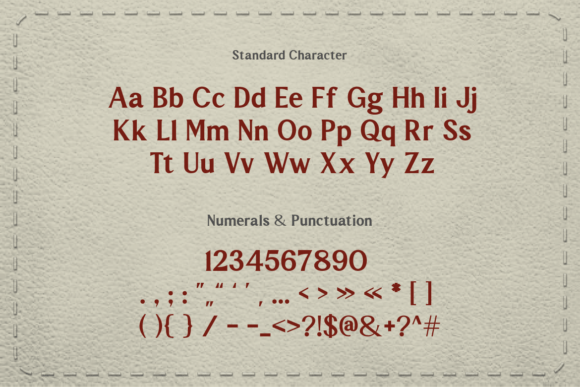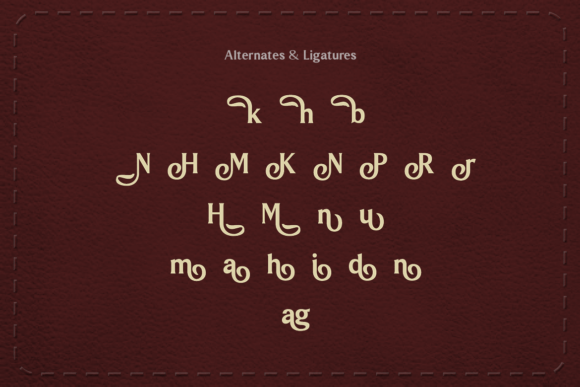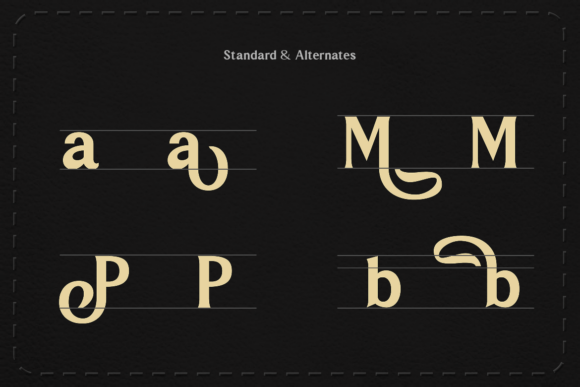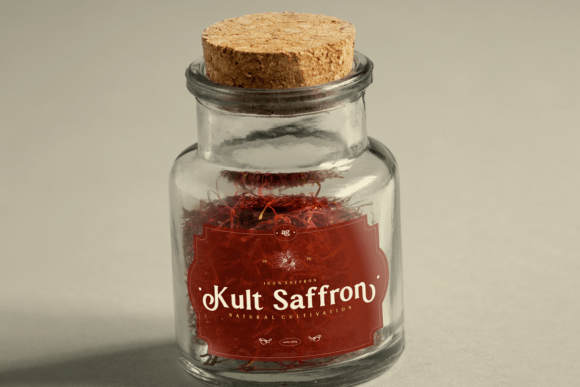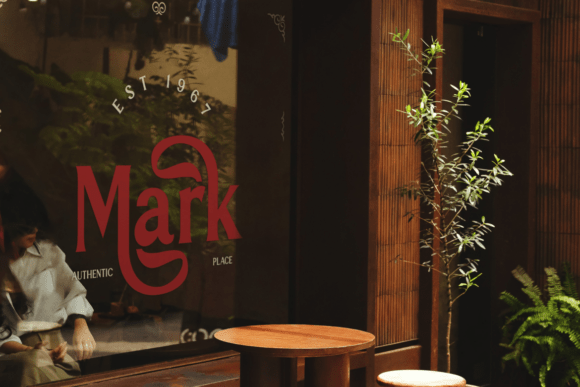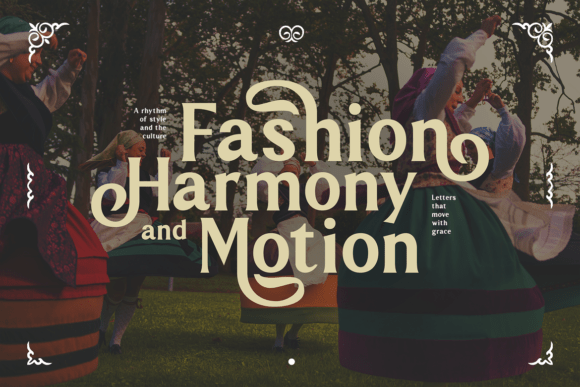
Magnavellla Font – Free Download
Introduction to Magnavellla Font
Magnavella is an elegant decorative display serif font designed to bring sophistication and artistic personality to modern typography.
Magnavella is highly suitable for projects that require elegant decorative typography It works beautifully for luxury branding, fashion editorials, magazine headlines, wedding invitations, packaging design, logo creation, boutique branding, and sophisticated marketing materials where expressive serif typography enhances the visual identity.
Key Features of Magnavellla Font
Why Choose Magnavellla Font?
Magnavellla Font offers exceptional quality and versatility, making it a valuable addition to your design toolkit. Whether you’re creating for personal projects or commercial use, Magnavellla Font delivers professional results.